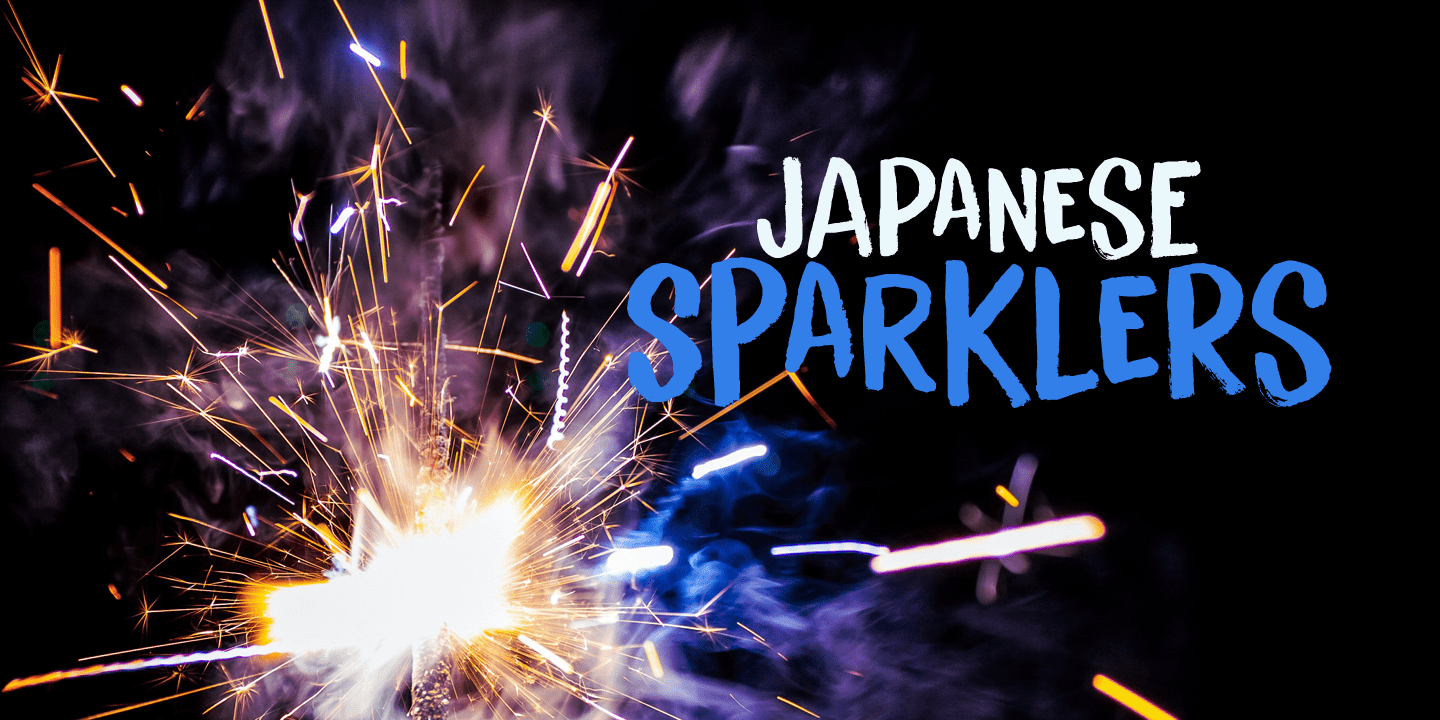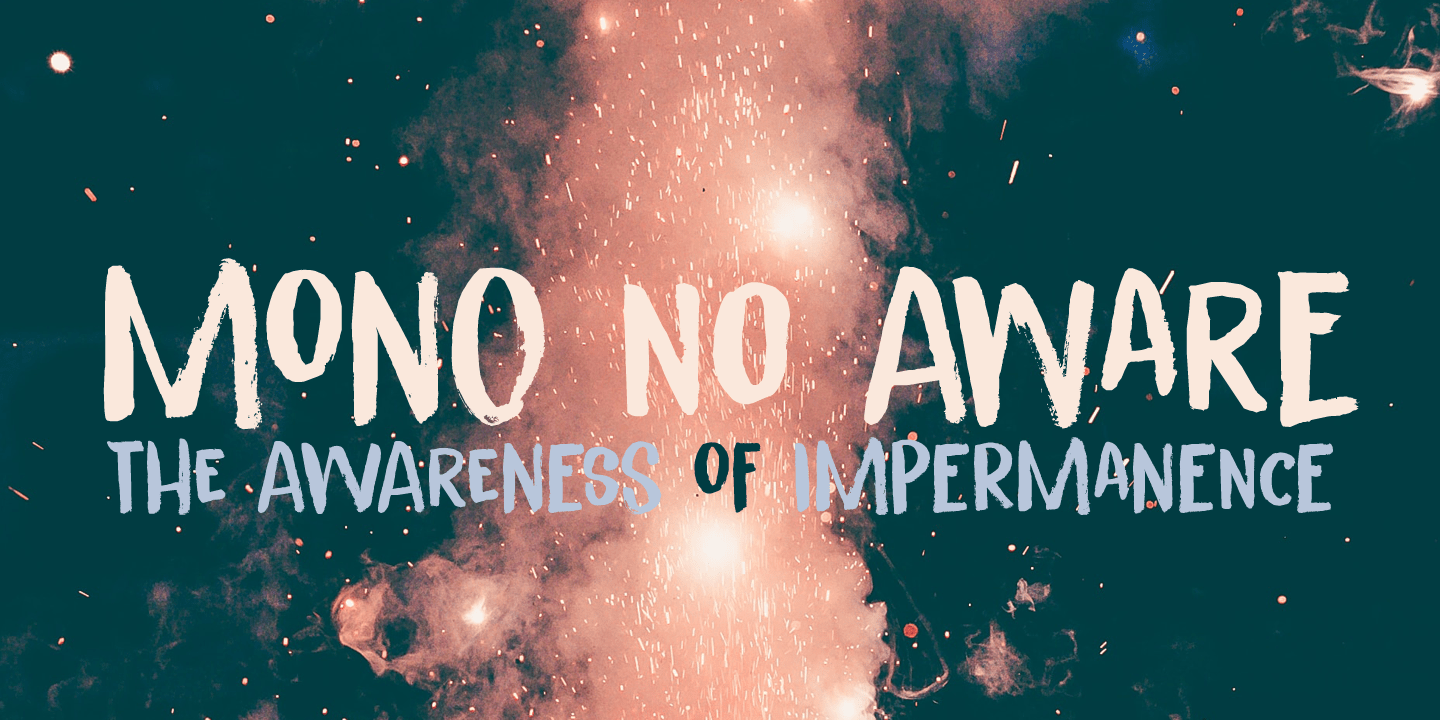
About Senko Hanabi
Senko Hanabi (???? – Japanese: incense-stick fireworks) is a type of Japanese sparkler. These traditional sparklers are said to evoke ?mono no aware? – ?an empathy toward things?; the flash of sadness when reminded of the fleeting nature of life. I am…